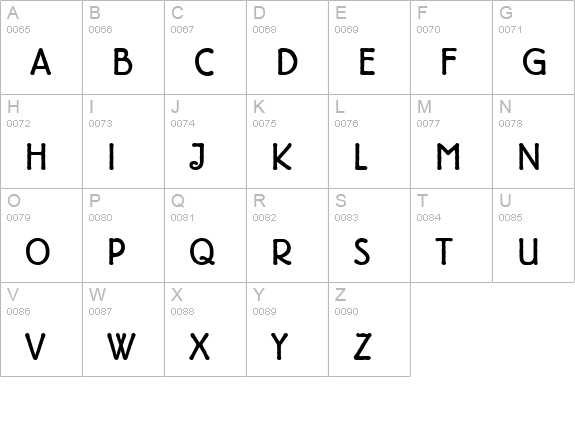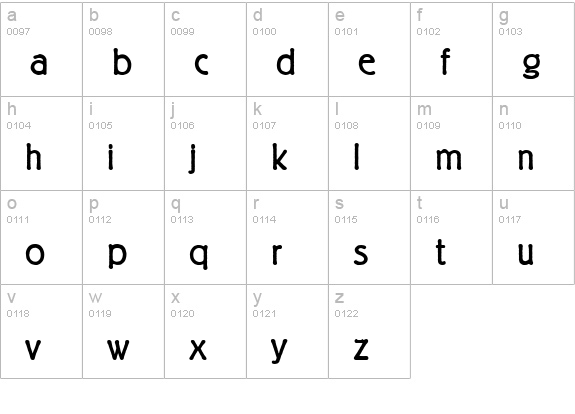
Belfort-Regular is the standard, neutral variant in the Belfort typeface family \xE2\x80\x94 well suited to general body text, paragraphs, and standard typographic work.
Belfort-Regular is a versatile and modern font that exudes elegance and sophistication. With its clean lines and balanced proportions, this typeface is perfect for a wide range of design projects, from branding and advertising to editorial and web design. Belfort-Regular is free to download at FontsMarket.com, making it accessible to designers and creatives looking to add a touch of timeless style to their work. Whether you're creating a logo, designing a website, or crafting a print publication, Belfort-Regular is sure to make a lasting impression with its timeless appeal. Download this beautiful font today and elevate your designs with its effortless charm and versatility.